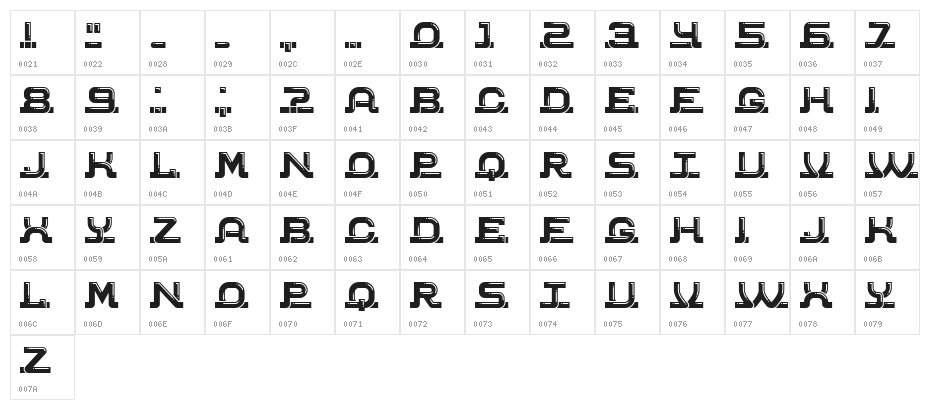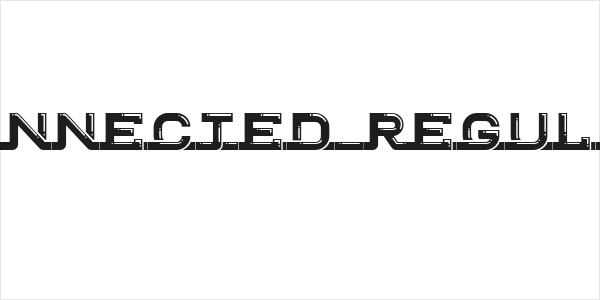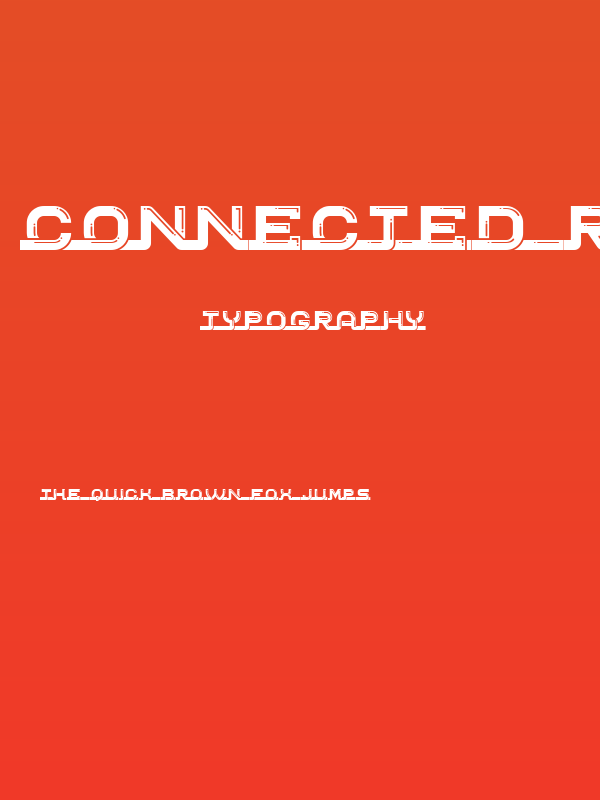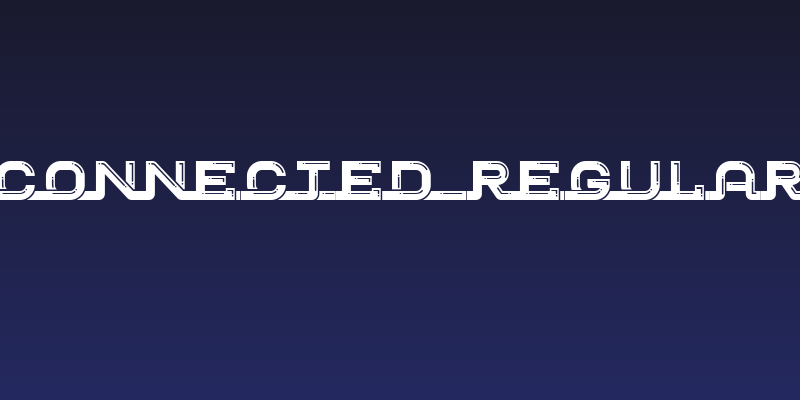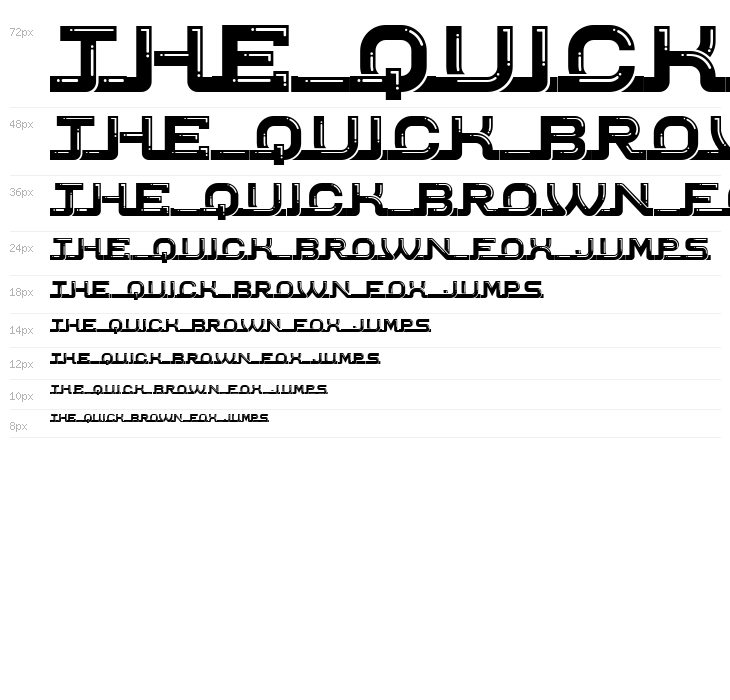
Connected Regular Font
Connected Regular Description
This font features a futuristic and geometric design with a distinct connected style. Each character is crafted with a combination of bold lines and intricate cutouts, creating a sense of movement and continuity. The uppercase and lowercase letters maintain a consistent height, enhancing readability while preserving the unique aesthetic. The numerals and special characters follow the same design principles, ensuring uniformity across all glyphs. The font's modern and edgy appearance makes it suitable for projects that require a contemporary and innovative look.
| Proposed Projects | Ideal for technology branding, sci-fi themed designs, modern posters, and innovative product packaging. |